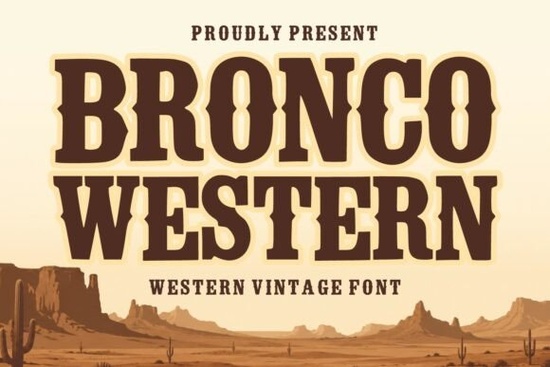
If you're looking for a bold, authentic western font that captures the spirit of old saloons and desert trails, Bronco Western Font delivers exactly that. It’s built with slab serif characters that feel sturdy and grounded perfect for projects where you want a rugged, vintage vibe without trying too hard.
What kind of projects works best with Bronco Western?
This font shines in designs that celebrate cowboy culture, country themes, or anything with a retro Western feel. Whether you’re designing a t-shirt for a rodeo event, creating branding for a local ranch-style business, or making posters for a music festival with country roots, Bronco Western adds instant character.
- T-shirt designs – The bold strokes stand out on fabric and look great with minimal background color.
- Logo creation – Ideal for brands tied to outdoor life, rodeos, or western heritage.
- Packaging & labels – Great for craft beer, spice blends, or gift boxes with a rustic touch.
- Posters & event flyers – Its strong presence makes it perfect for drawing attention at festivals or concerts.
- Vintage-inspired layouts – Works well with faded textures, leather patterns, or dusty color palettes.
Why designers choose this slab serif font
Unlike many fonts that try to mimic a Western style with gimmicks, Bronco Western feels genuine. The letterforms have subtle imperfections like uneven stroke widths and slight asymmetry that give them a hand-crafted look. It’s not just about the look; it’s about the mood it creates.
You’ll notice how each character carries weight, especially the capital letters. That makes it ideal for headlines and titles where impact matters. The font also includes extended character sets, so you can use it across multiple languages if needed useful for international creatives or print-on-demand sellers.
How to get the most out of Bronco Western
While the font looks striking on its own, pairing it with simpler elements helps keep your design balanced. Try using a clean sans-serif font for body text or small details. A dark brown, rust red, or weathered gray background often complements the font’s tone better than bright colors.
For print projects, make sure to test your design at full size before finalizing. The boldness of the font can sometimes appear too heavy if not sized properly, especially on smaller items like stickers or packaging labels.
Bronco Western Font is one of several options in the Western-themed typeface collection, but its balance of strength and authenticity sets it apart.Final thoughts: Is Bronco Western right for your next project?
If you're drawn to classic American design think neon signs, leather-bound journals, or dusty trail maps this font fits naturally. It doesn’t scream “look at me,” but it commands attention when it needs to. For creative hobbyists, small business owners, and print-on-demand sellers, it’s a reliable tool for building a consistent brand voice.
Once you’ve tried it, you might find yourself reaching for it again and again especially when you need something that feels both timeless and true to its roots.